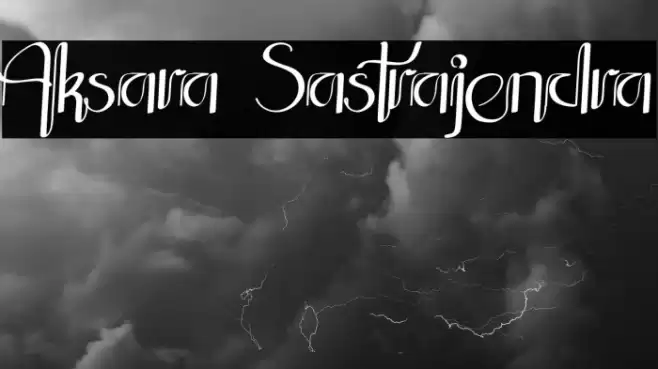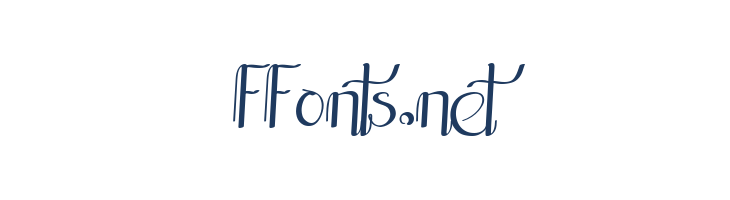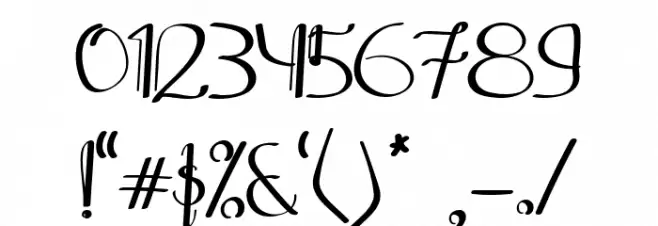
Aksara Sastrajendra Font
Aksara Sastrajendra Description
This font features an elegant and artistic design with a calligraphic flair. The characters are crafted with a unique blend of curves and sharp angles, giving it a sophisticated yet playful appearance. The uppercase letters are tall and slender, while the lowercase letters maintain a consistent style with a slightly more compact form. The numerals are distinct and follow the same artistic theme, ensuring readability while maintaining the font's decorative nature. Special characters are thoughtfully designed, complementing the overall aesthetic. This font is ideal for projects that require a touch of elegance and creativity.
An elegant, calligraphic font with artistic curves and sharp angles from Regular fonts.
- Proposed Projects: Ideal for wedding invitations, luxury branding, artistic posters, and creative logos.
- Use Case: Logos, Invitations, Artistic Projects